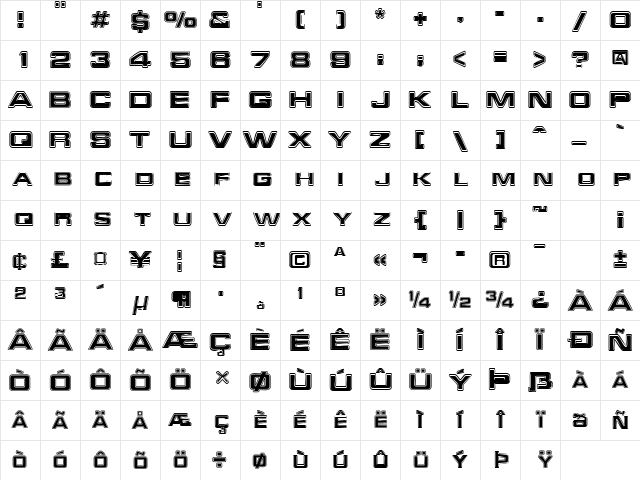
PastDueSCapsSSK Regular
PastDueSCapsSSK Family
Design Context for PastDueSCapsSSK
PastDueSCapsSSK is a composed and adaptable typeface that performs quietly and consistently across a wide range of design contexts.